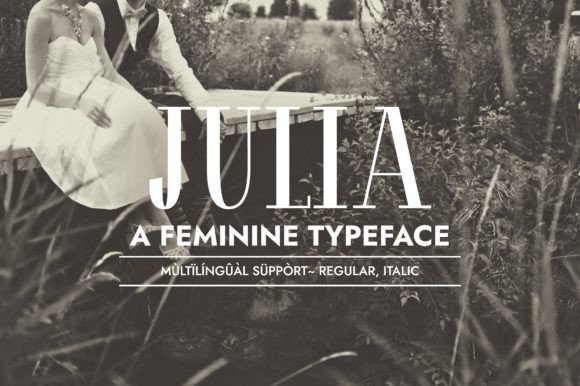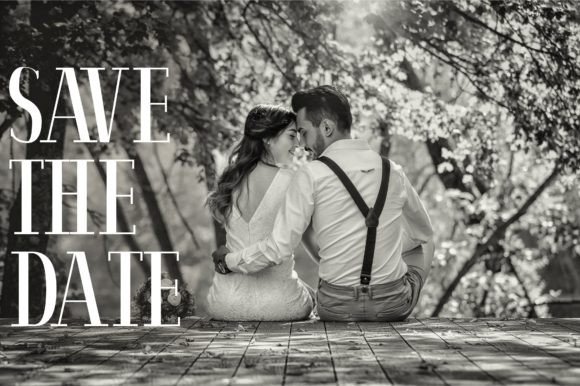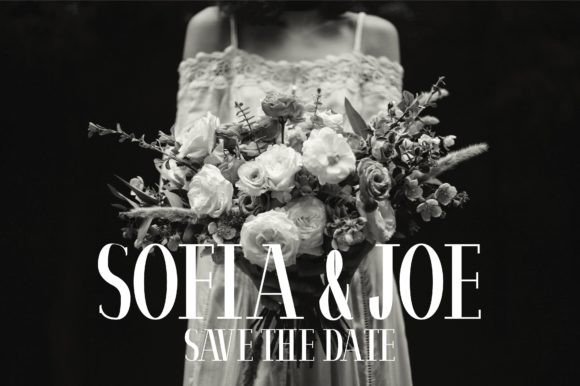
Julia: An Elegant Slab Serif Font
Julia is an elegant slab serif font, the perfect choice for designing luxury goods, wedding invitations, and romantic-related products. Its versatility makes it ideal for Valentine’s Day cards, love letters, packaging, perfumes, and cosmetics. Use Julia confidently in your creations, and you’ll see how it has the potential to make them stand out from the crowd.
Key Features of Julia
- Elegant Design: Offers a sophisticated and refined look suitable for luxury applications.
- Slab Serif Structure: Features distinctive serifs that add character and style.
- Versatile Application: Ideal for both print and digital media projects.
- Romantic Appeal: Perfect for love-themed designs and products.
Ideal Uses for Julia
Julia’s unique characteristics make it particularly well-suited for:
- Luxury goods branding and packaging
- Wedding invitations and stationery
- Valentine’s Day cards and love letters
- Perfume and cosmetics packaging
- Romantic product designs
- High-end magazine layouts
- Elegant website headers and digital content
When incorporating Julia into your designs, consider these tips:
- Use for headlines or short blocks of text to showcase its elegant style.
- Experiment with different sizes to highlight the font’s distinctive features.
- Consider pairing with simpler sans-serif fonts for body text to create contrast.
- Utilize its romantic appeal in designs that require a touch of sophistication and love.
Julia is an excellent choice for designers looking to add an elegant and romantic slab serif font to their typographic toolkit. Its ability to enhance luxury and love-themed designs makes it stand out in the world of typography. Whether you’re working on wedding invitations, creating packaging for high-end products, or developing content that requires a touch of sophistication, Julia offers the perfect blend of style and elegance.
Furthermore, Julia’s unique design allows it to shine in various contexts. From romantic greeting cards to luxury brand identities, this font can elevate your projects with its distinctive style. Its refined yet functional appearance works particularly well in designs that aim to evoke feelings of love and luxury.
In conclusion, Julia is a font that truly captures the essence of elegance and romance in typography. Its ability to work well in both minimalist projects and more elaborate layouts showcases its versatility. For those looking to add a touch of sophisticated charm to their work, Julia can enhance themed creations with its distinctive style. It’s the perfect choice for designers seeking to make a refined, stylish impact across a wide range of romantic and luxury-oriented creative projects.